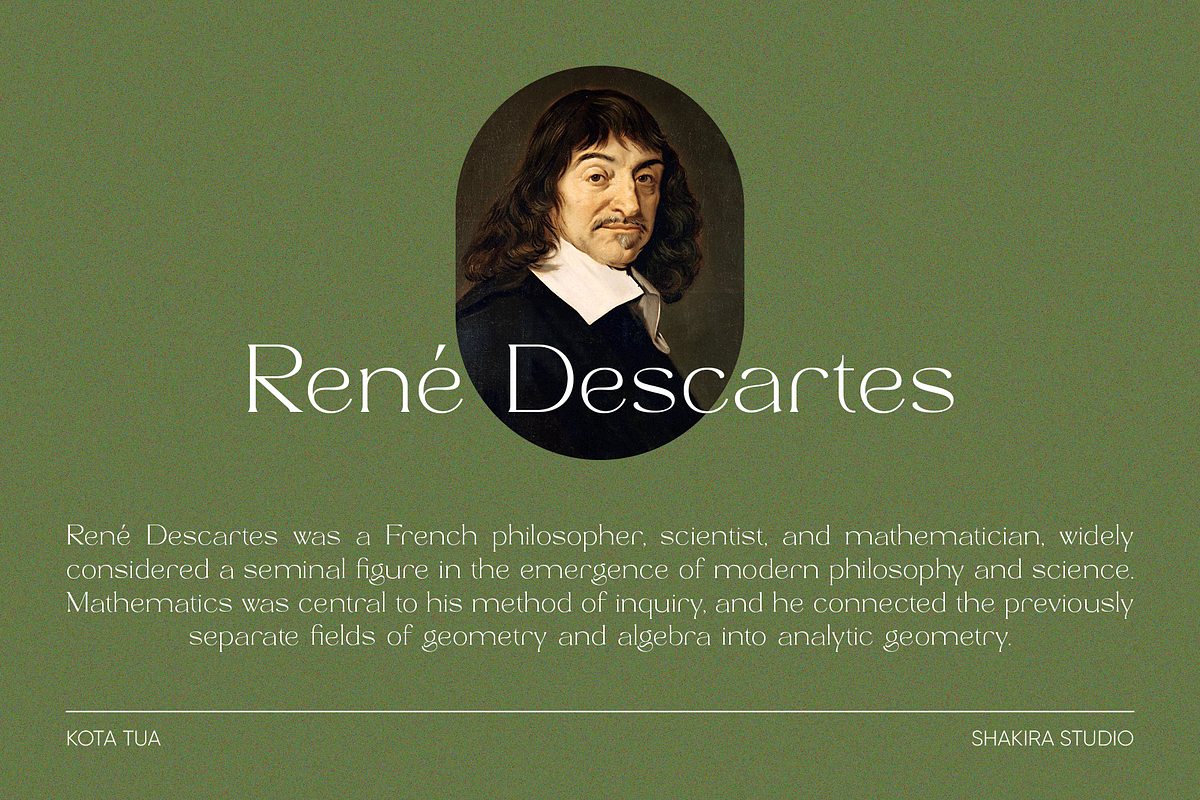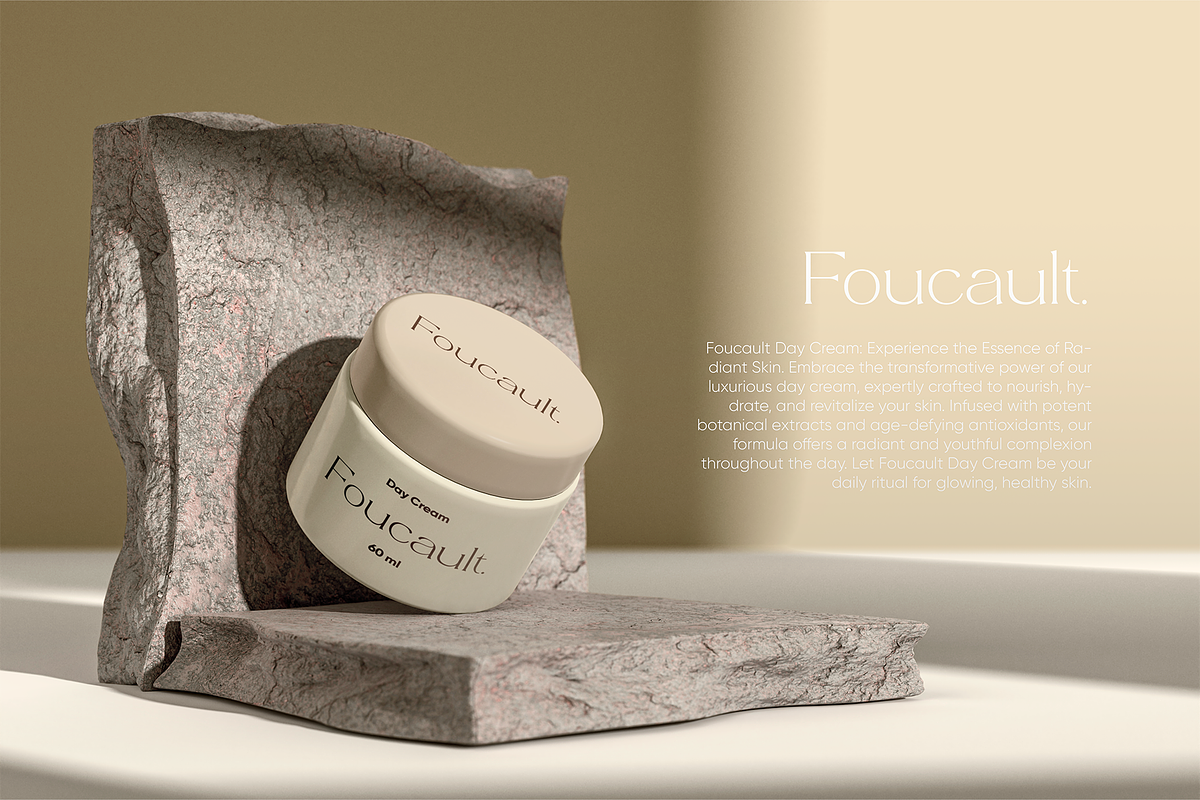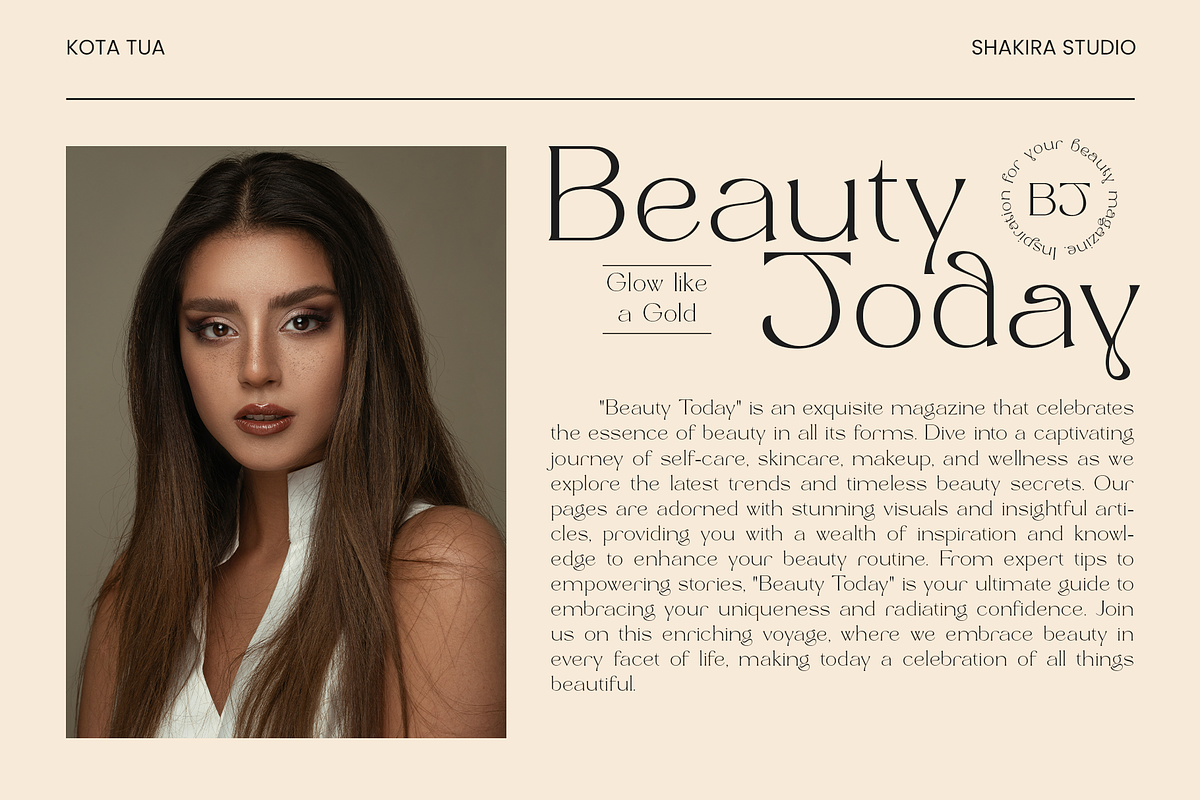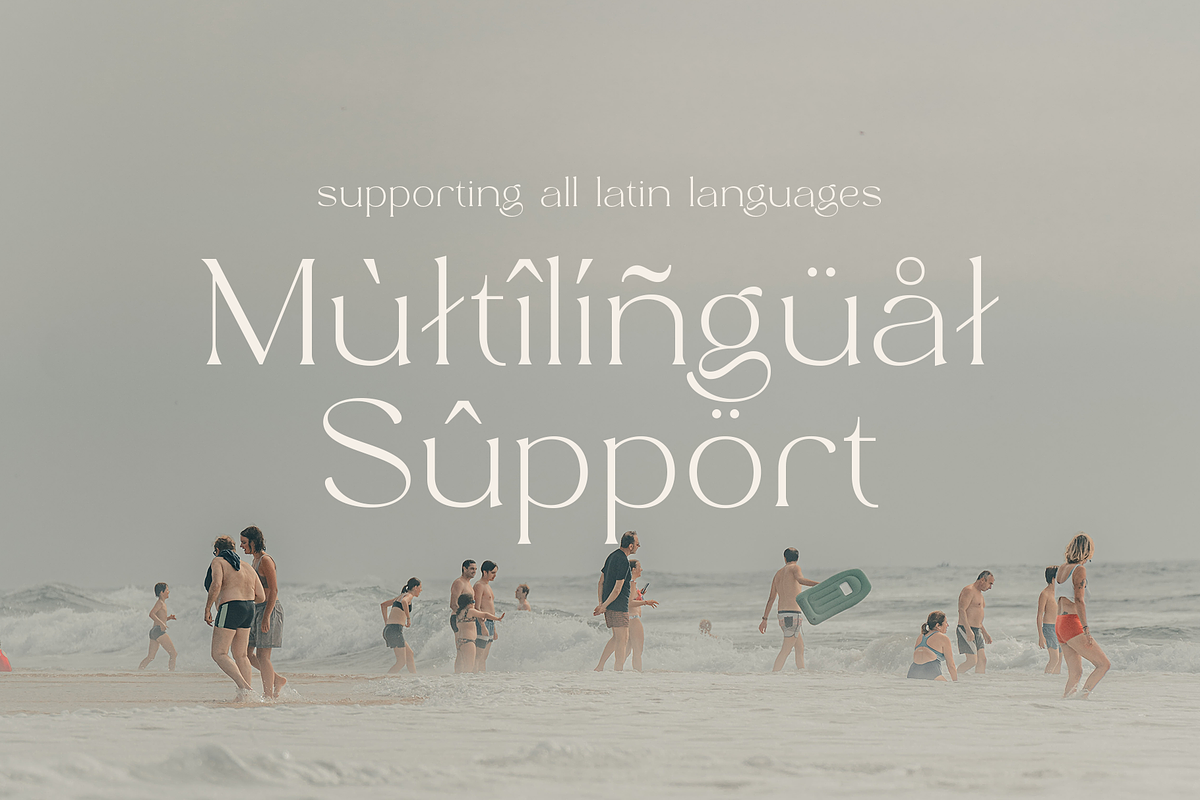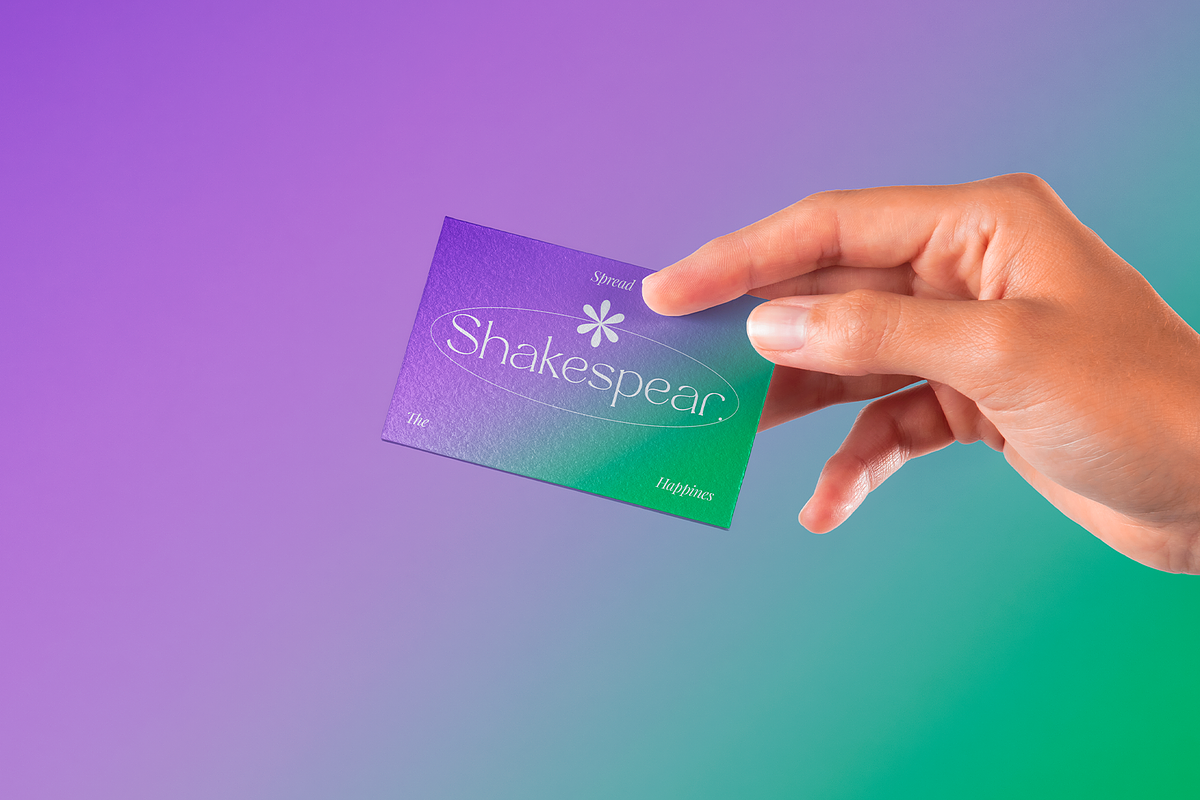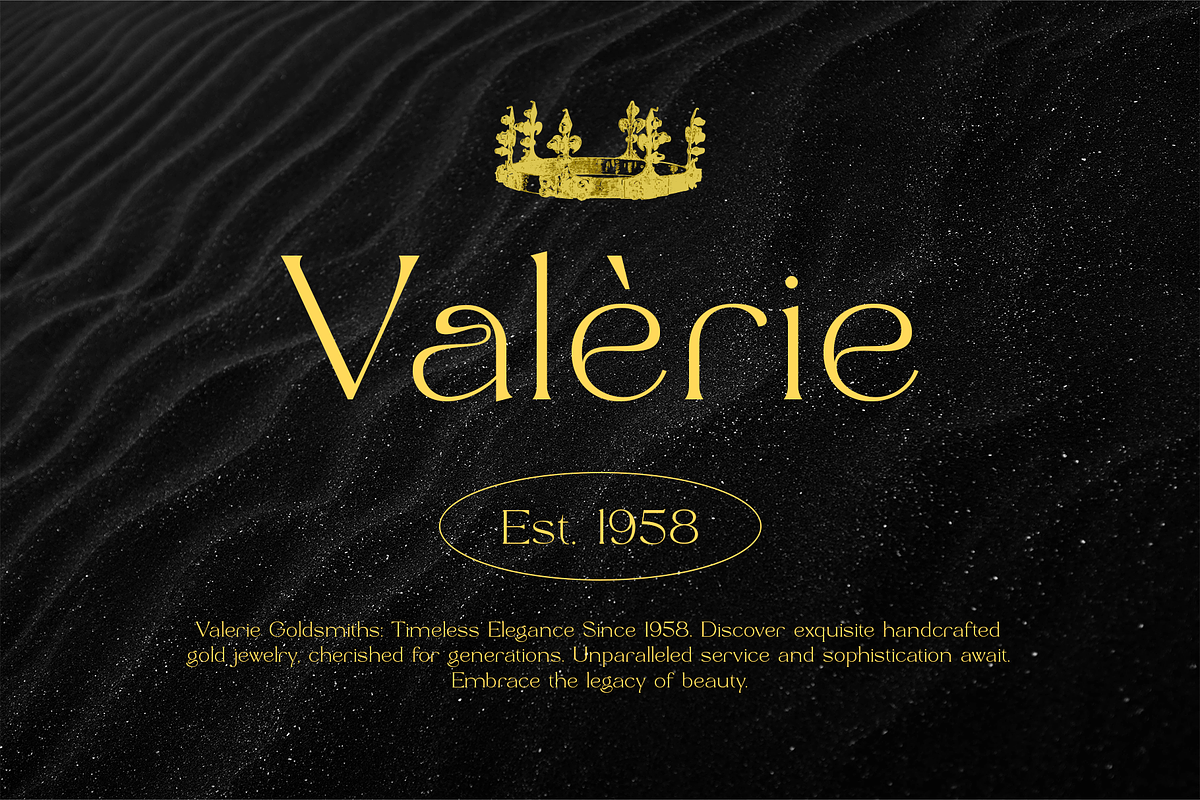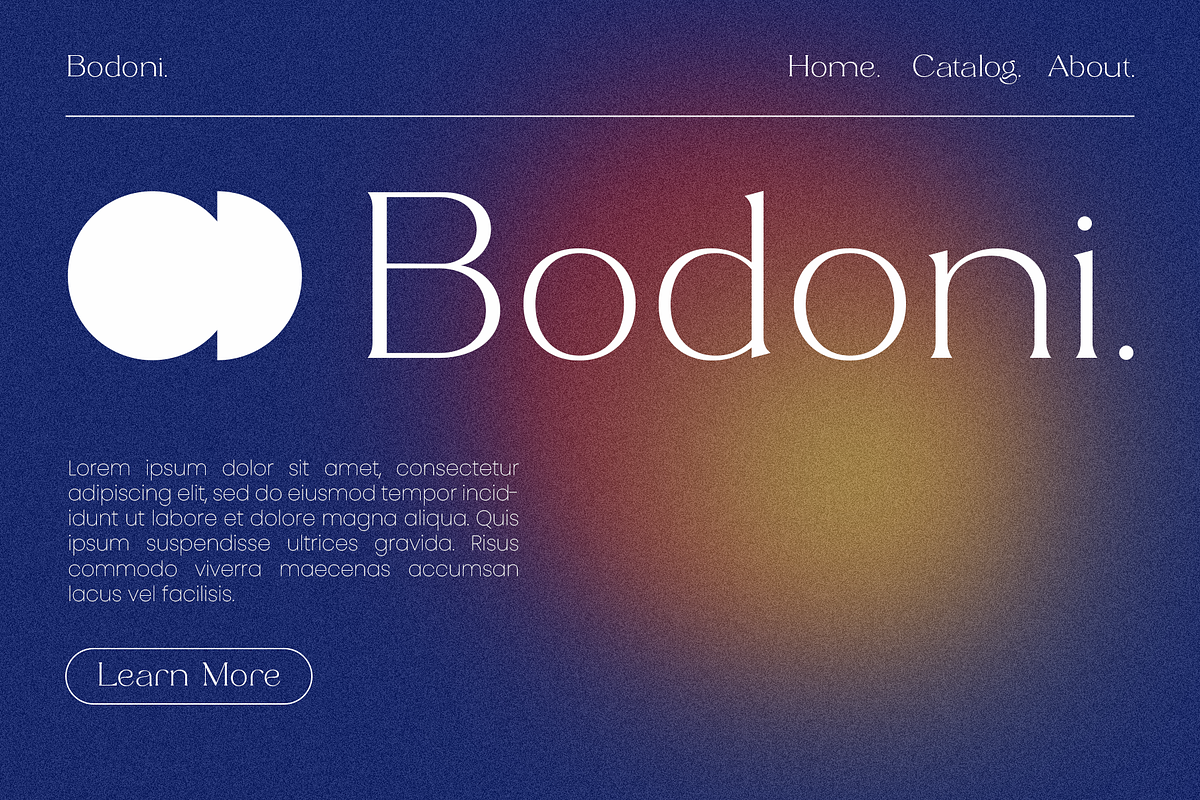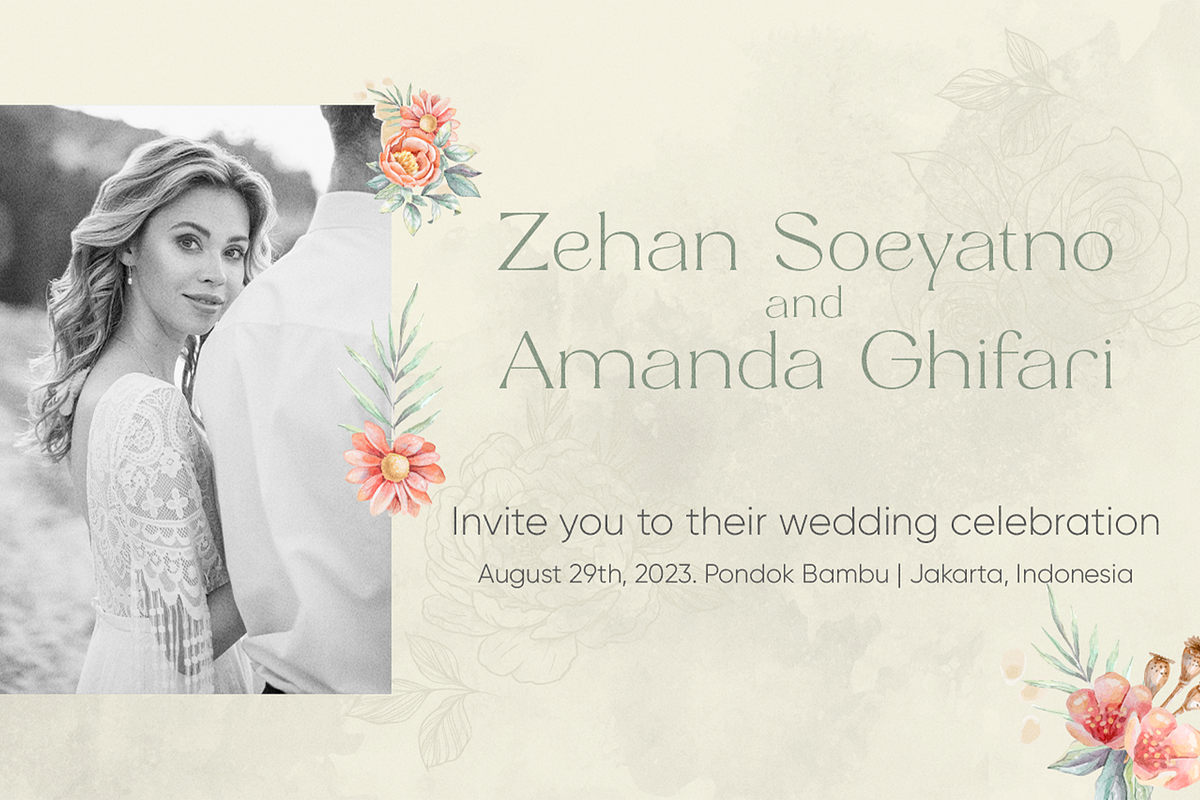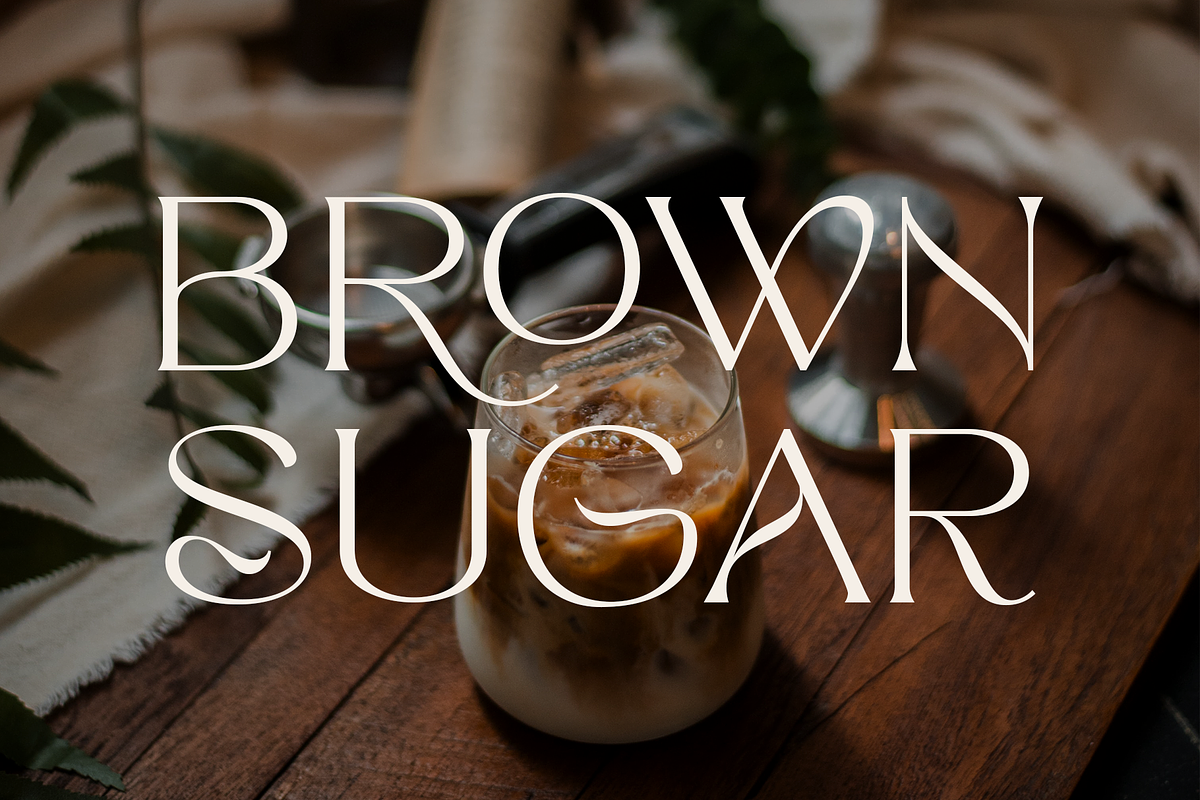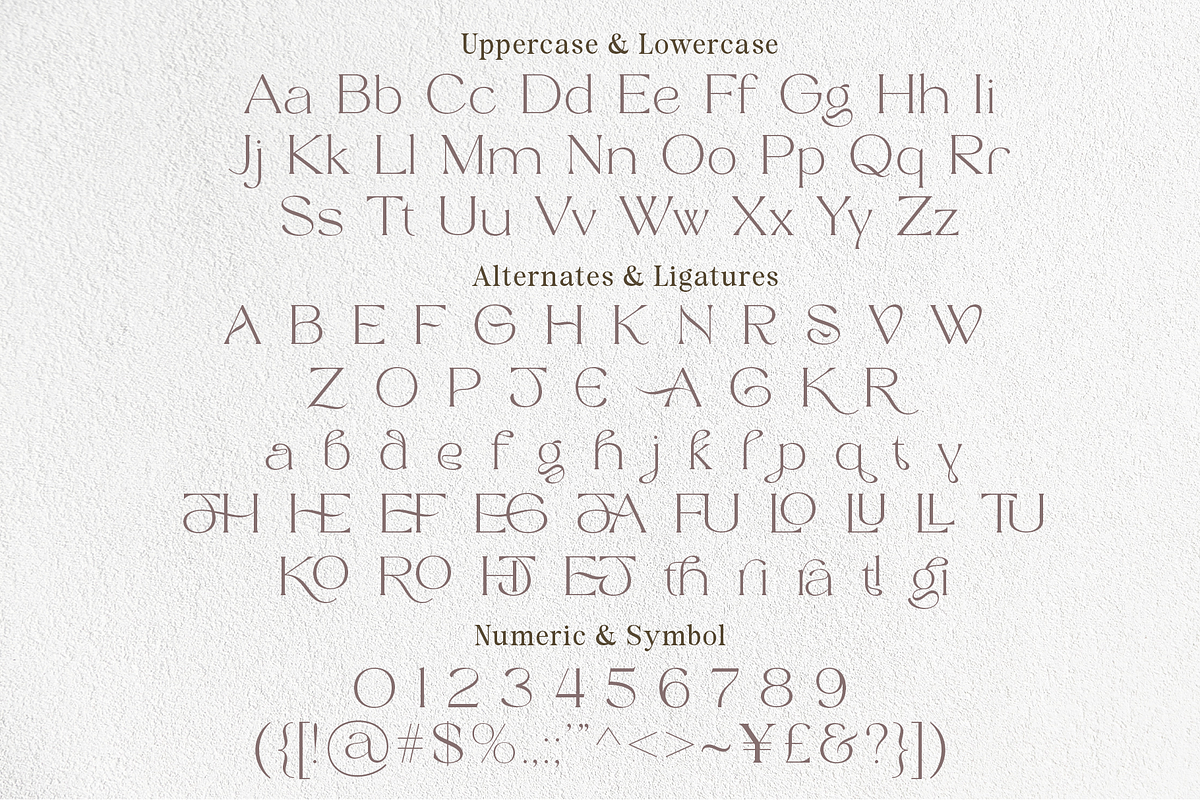
Triangle - Modern Stylis Serif
Say hello to new serif font, Triangle!
Introducing Triangle, a font that exemplifies the very essence of modern style within the serif category. This typeface marries classic elegance with contemporary flair, making it an ideal choice for designers seeking sophistication and visual impact in their projects.
Triangle boasts meticulously crafted letterforms with a sleek, timeless design. Its serifs, although rooted in tradition, are refined and minimalistic, giving the font a unique and distinctly modern edge. Each character is a testament to precision and elegance.
With Triangle, your designs will radiate an air of confidence and style. This versatile font can be employed in a myriad of design applications, from high-end branding and editorial layouts to luxury packaging and sleek websites. Its adaptability is one of its most compelling features, ensuring it can seamlessly blend into any project.
- Triangle Regular and Italic
- All Multilingual symbol
- Opentype features ( ligature, alternate )
Multilingual character supports : (Afrikaans, Albanian, Catalan, Croatian, Czech, Danish, Dutch, English, Estonian, Finnish, French, German, Hungarian, Icelandic, Italian, Lithuanian, Maltese, Norwegian, Polish, Portuguese, Slovenian, Spanish, Swedish, Turkish, Zulu)